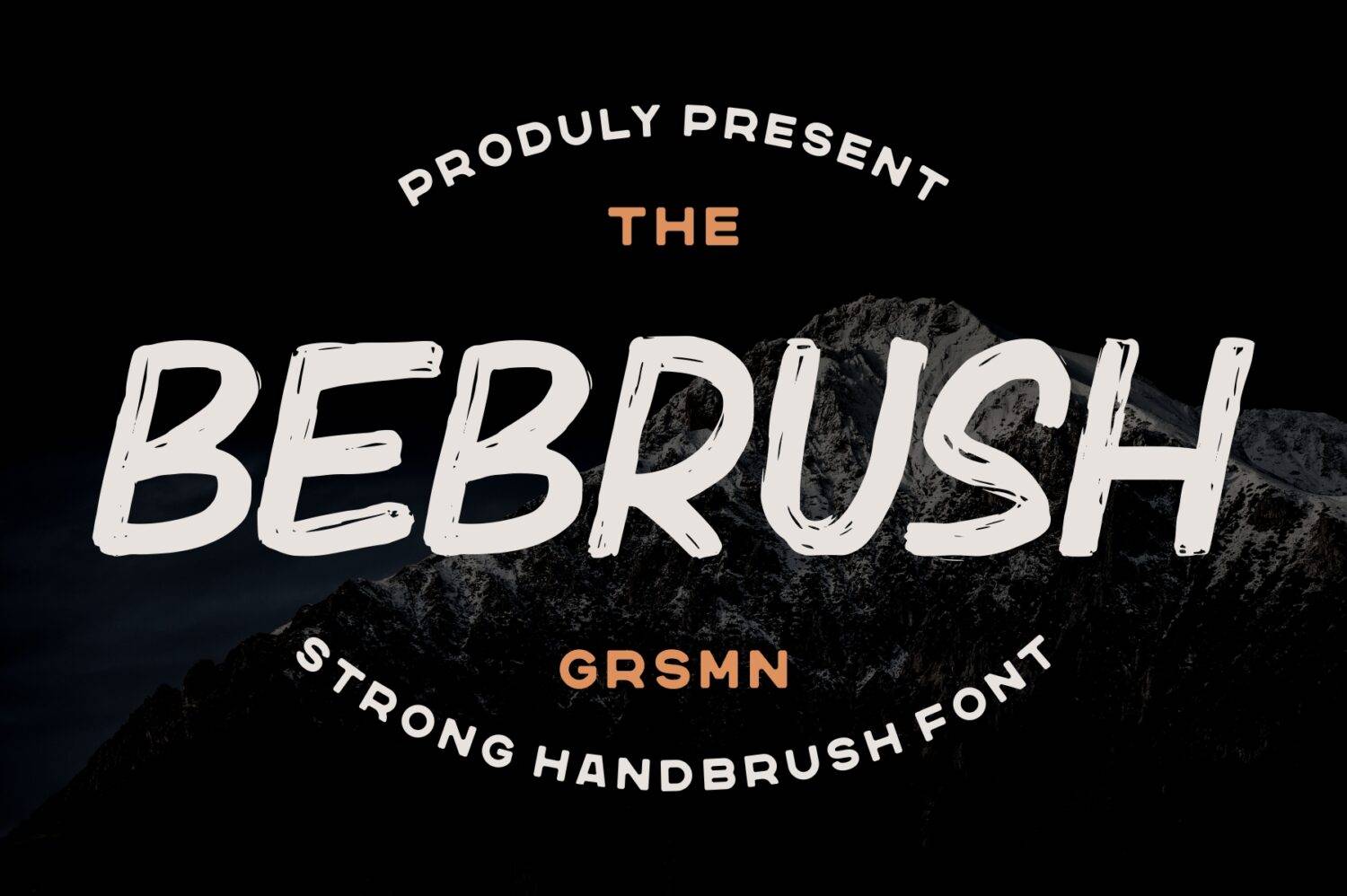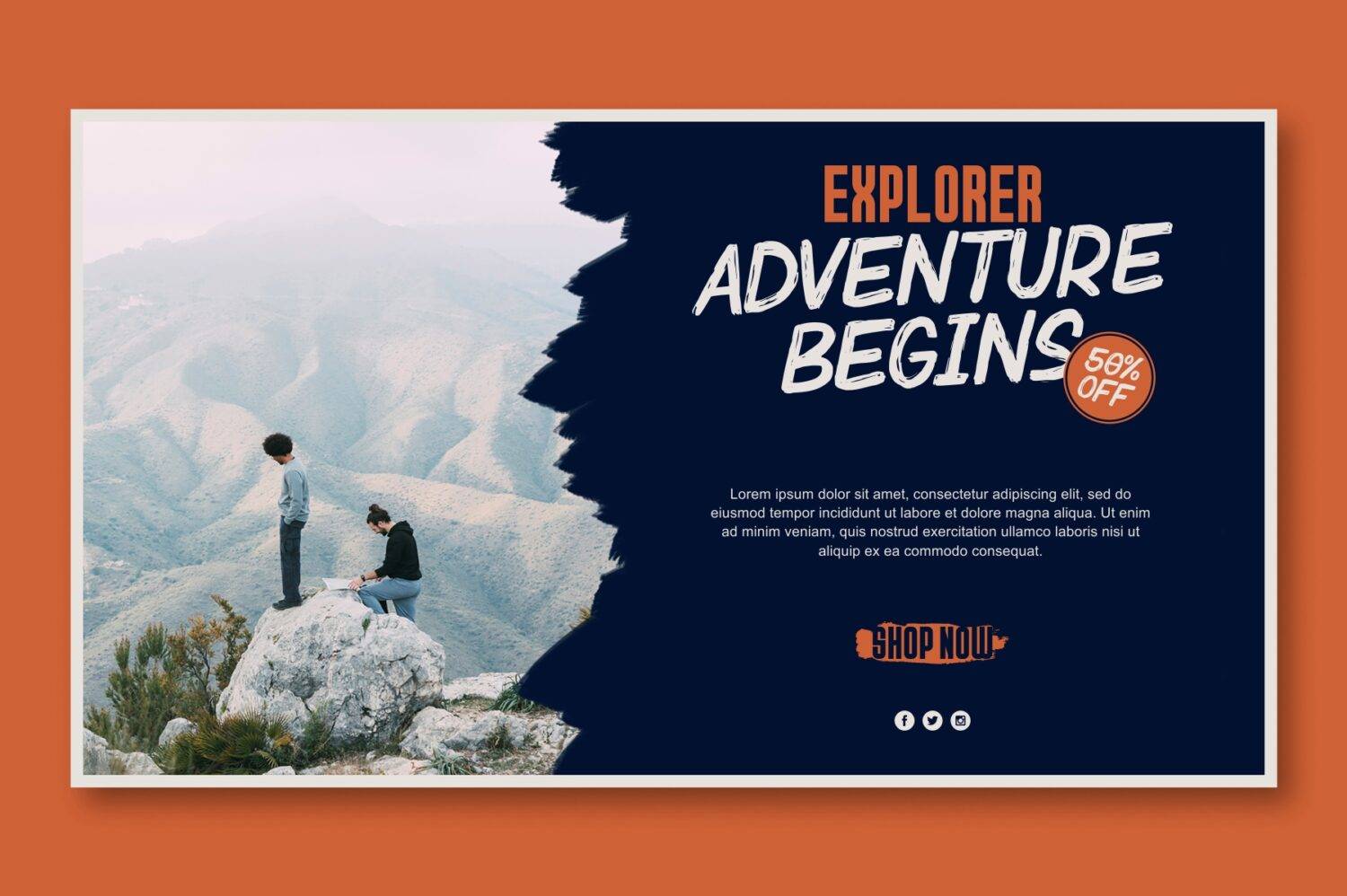
Bebrush is a bold, casual brush script font featuring textured, hand-painted strokes that bring a sense of energy and creativity. Its slightly slanted letters with uneven edges give it an informal, artistic vibe, perfect for designs that want to convey a lively, handcrafted feel. This font works well for logos, posters, and branding that aim to stand out with a playful yet dynamic personality.
Bebrush Font
About Bebrush Font
| Font family | Bebrush Font |